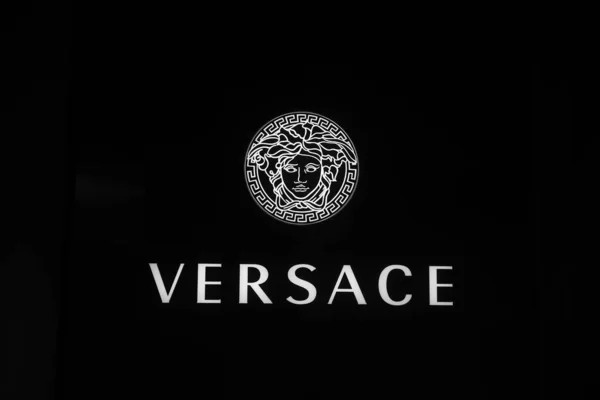
The Versace font that is used in the official logo for the luxury Italian fashion label is a sans-serif typeface by the name of Radiant. It was designed and created by a team of font authors that included: Robert Middleton and Steve Jackaman. It was released and distributed to the public via the Red Rooster Collection foundry.
The logo is simplistic and doesn’t incorporate a specific color scheme; however, it is usually white and presented in black. The official logo includes text and image components; the image is a sketch of Gianni Versace in Versace font, which has been part of the official logo since 1993. A sans-serif typeface. The font is an upper-case design that demonstrates elegance and adaptability.